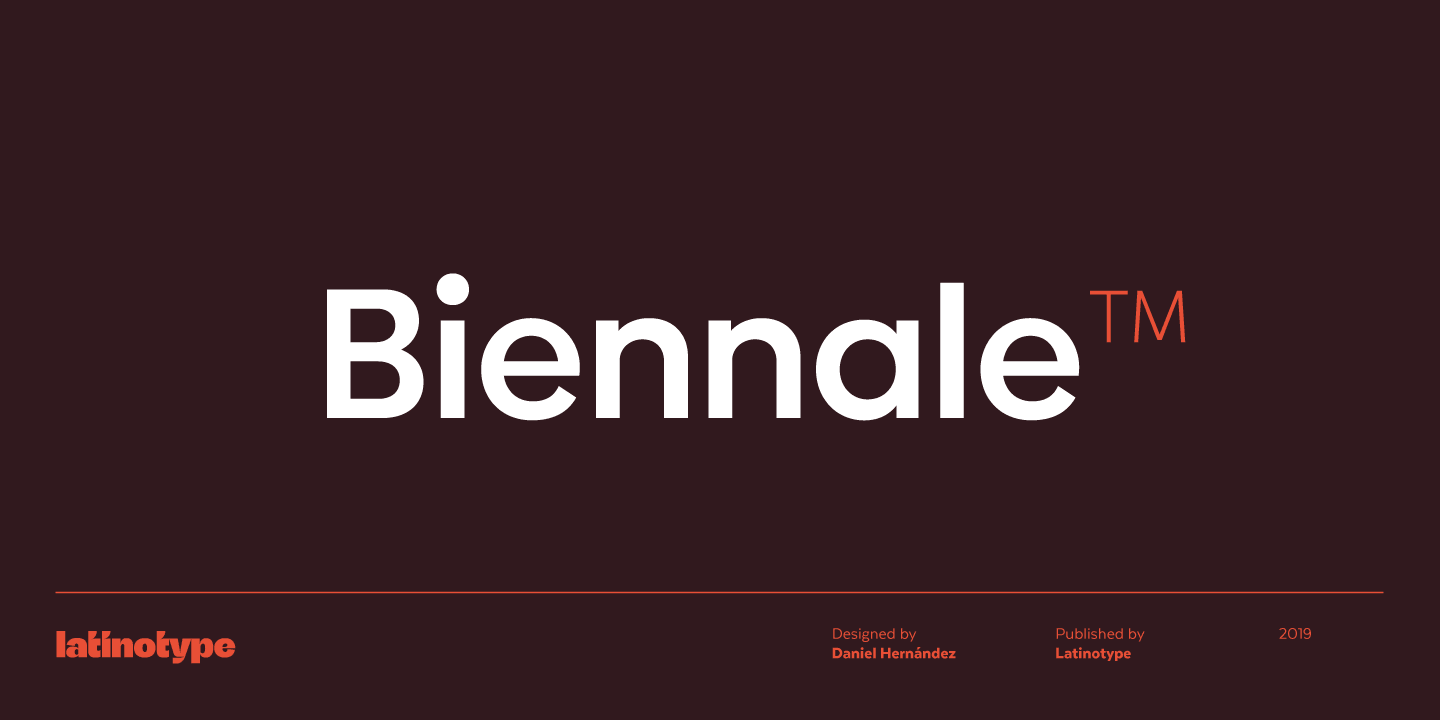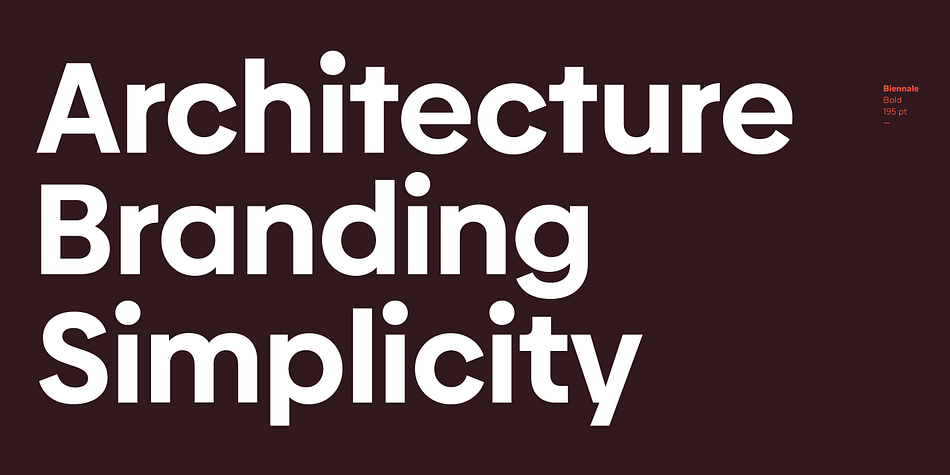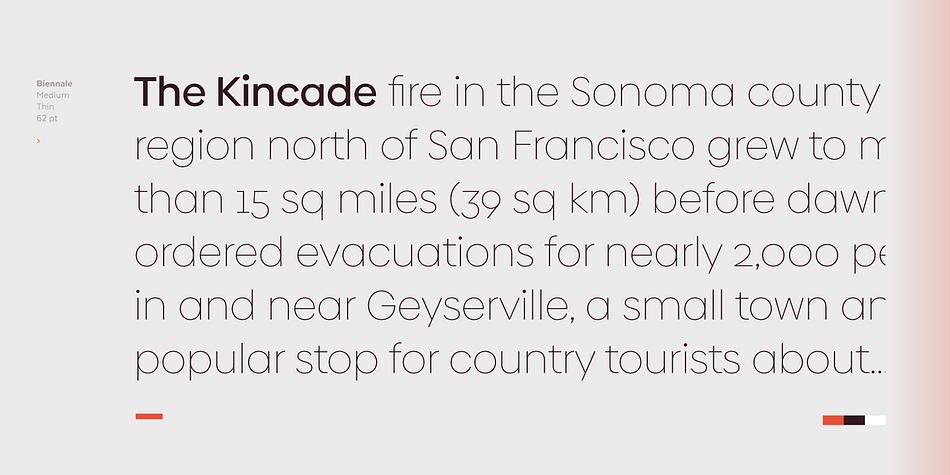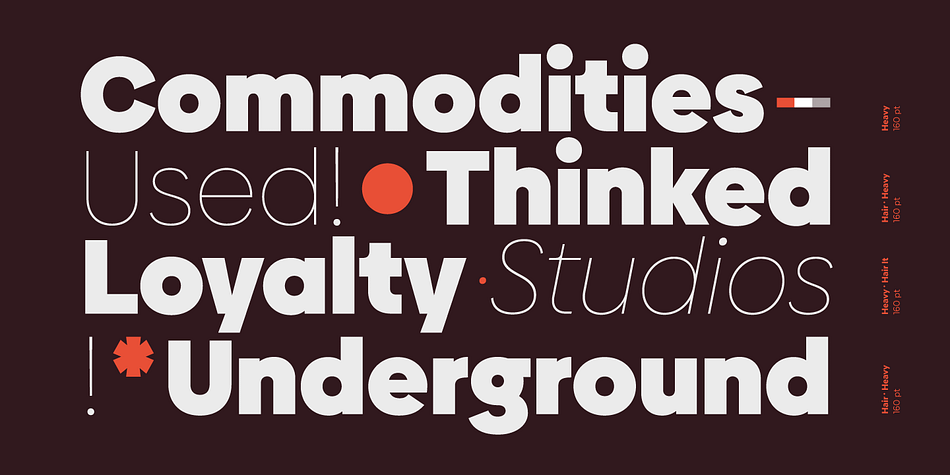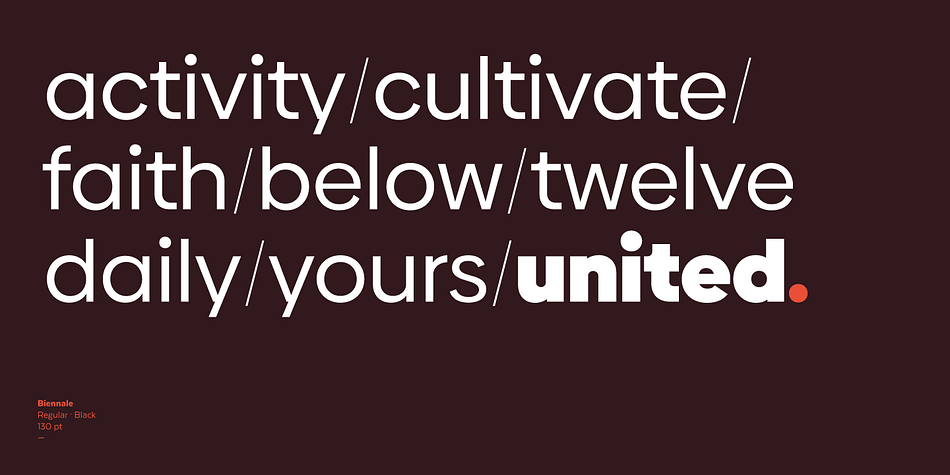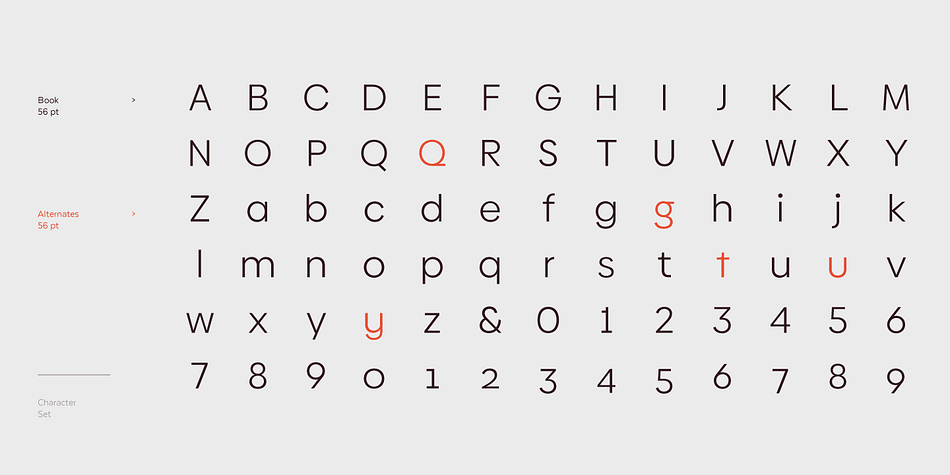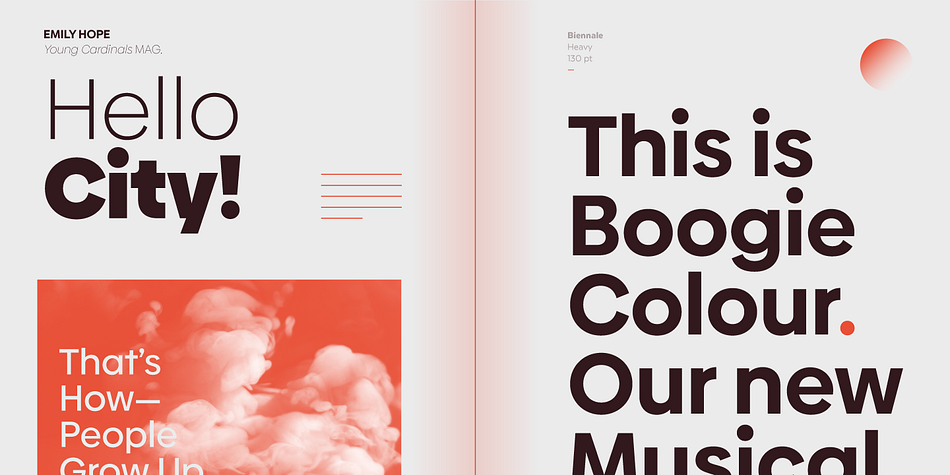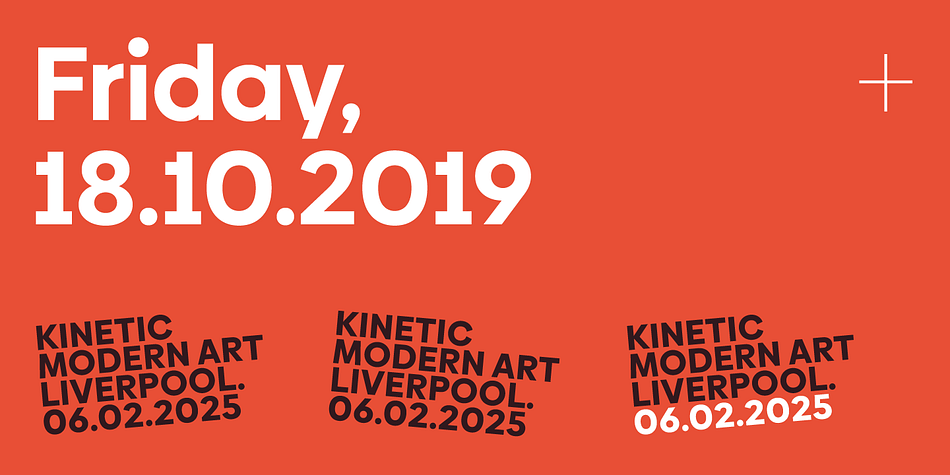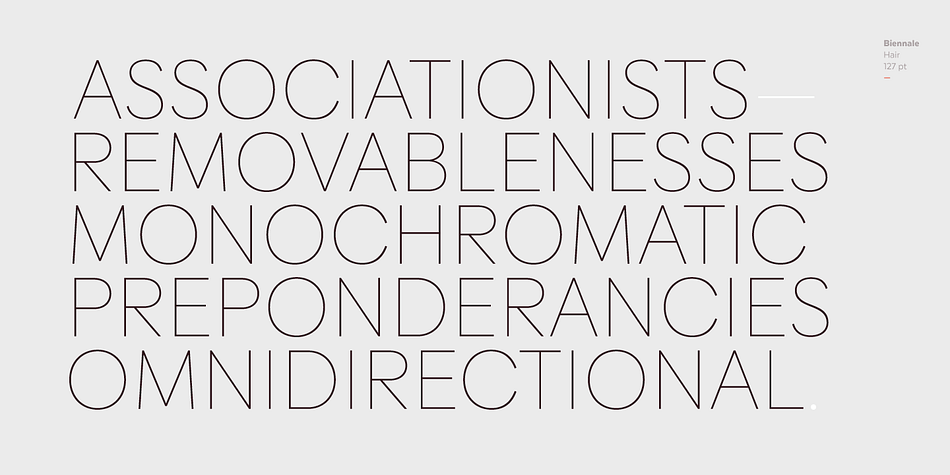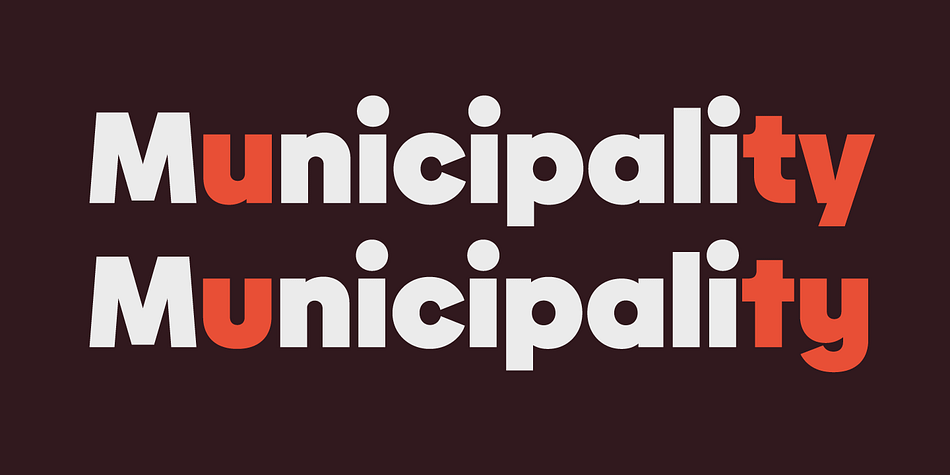
Biennale
Designed by Daniel Hernández, Biennale is a sans serif font family. This typeface has twenty-two styles and was published by Latinotype.
Biennale is our new geometric typeface